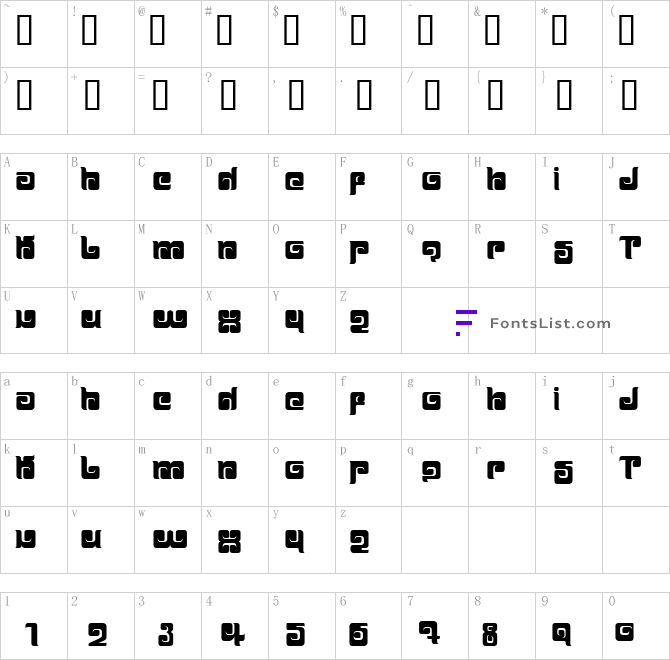
- Font Name:BALLOM
BALLOM.ttf is a very beautiful artistic font, BALLOM.ttf is widely used in the design and printing of various books and pictures,BALLOM.ttf has a strong visual impact,BALLOM.ttf is a commonly used font in newspapers, magazines and books, and is used in posters, e-commerce Poster design, store design, logo design, font design and other fields.BALLOM.